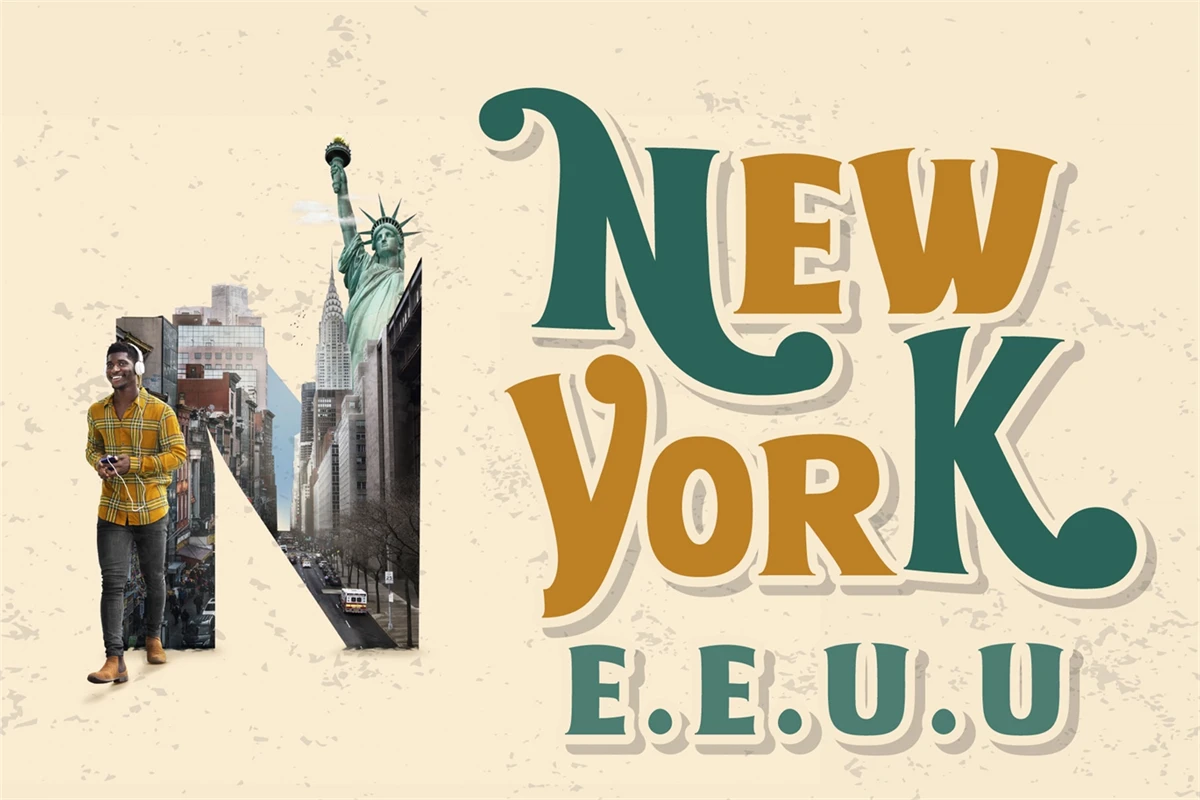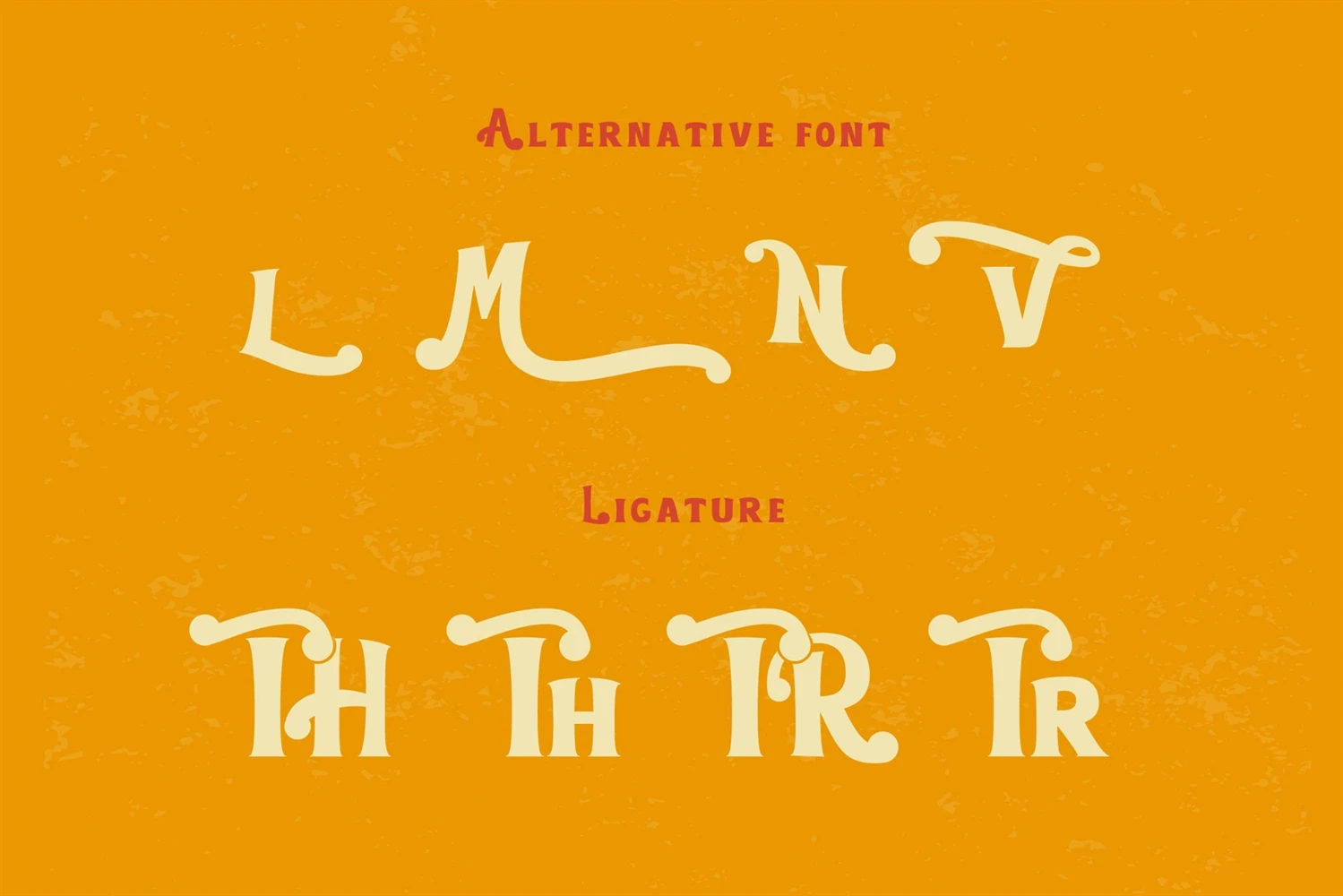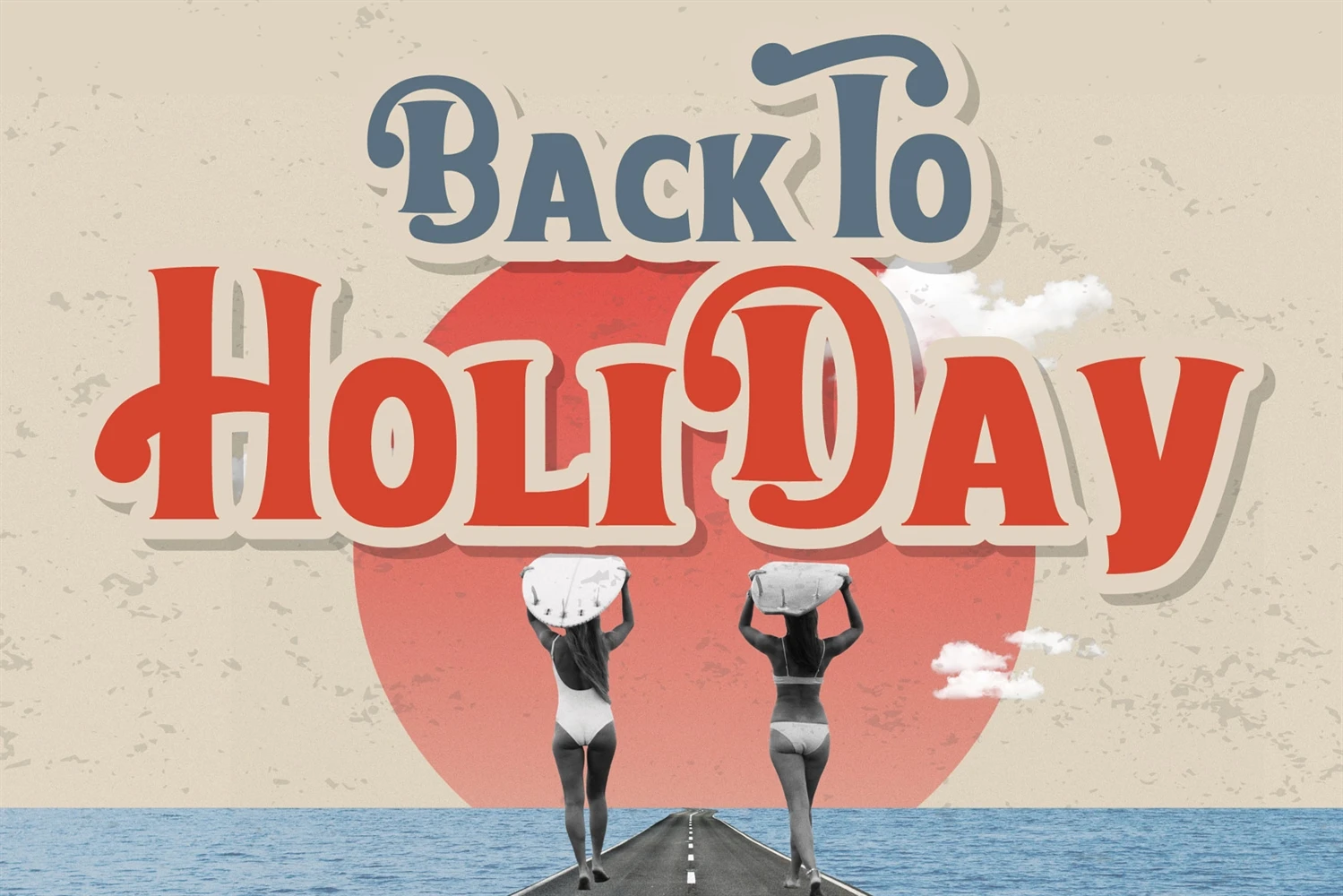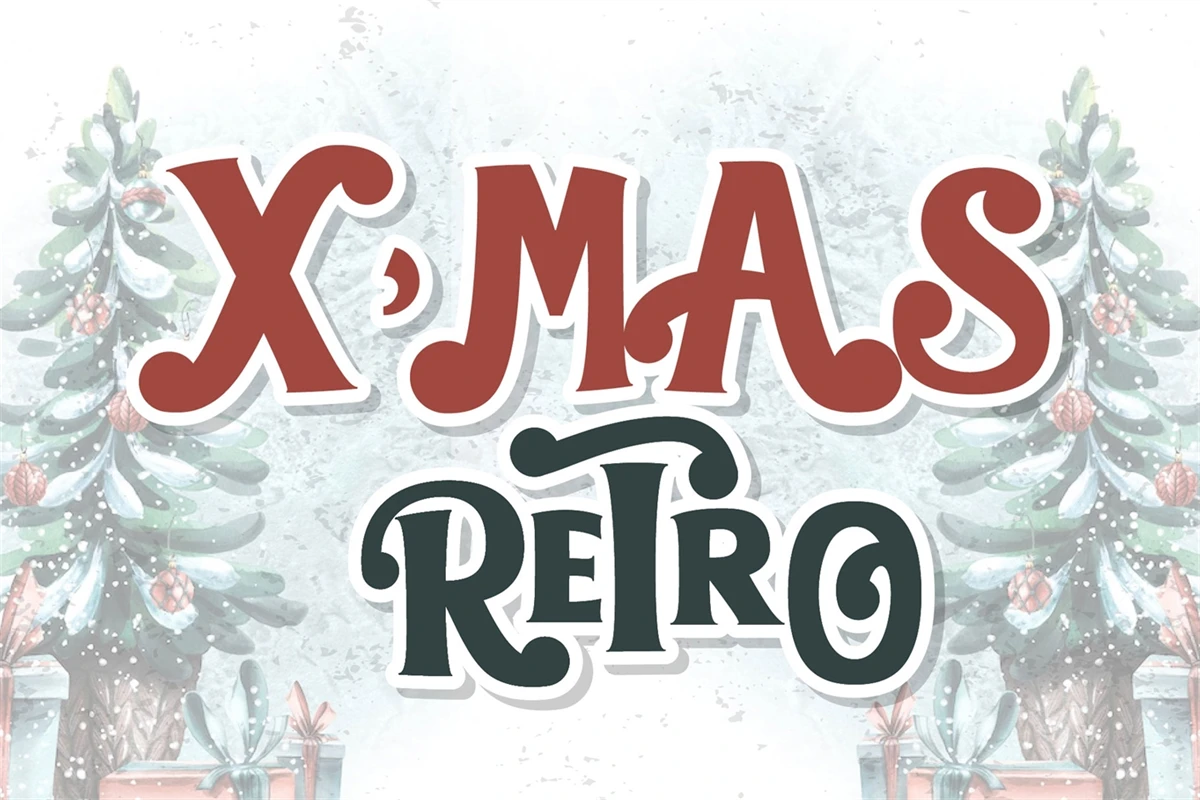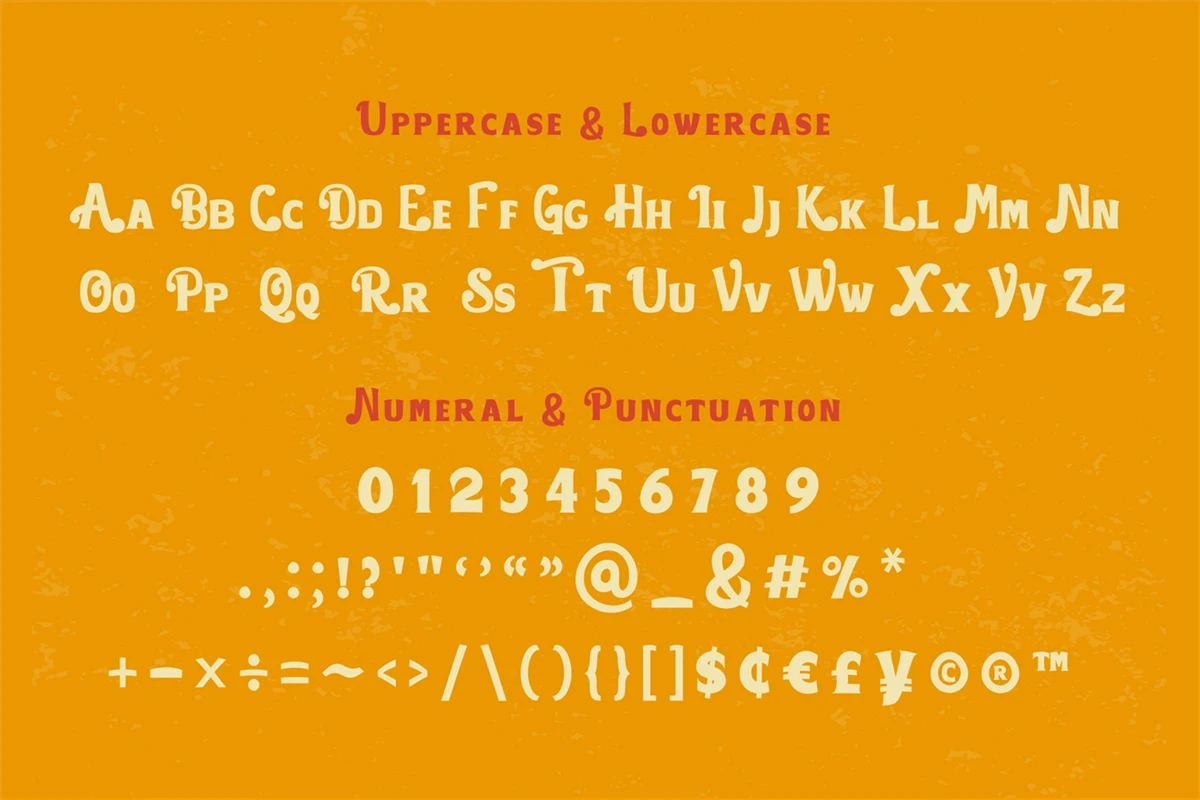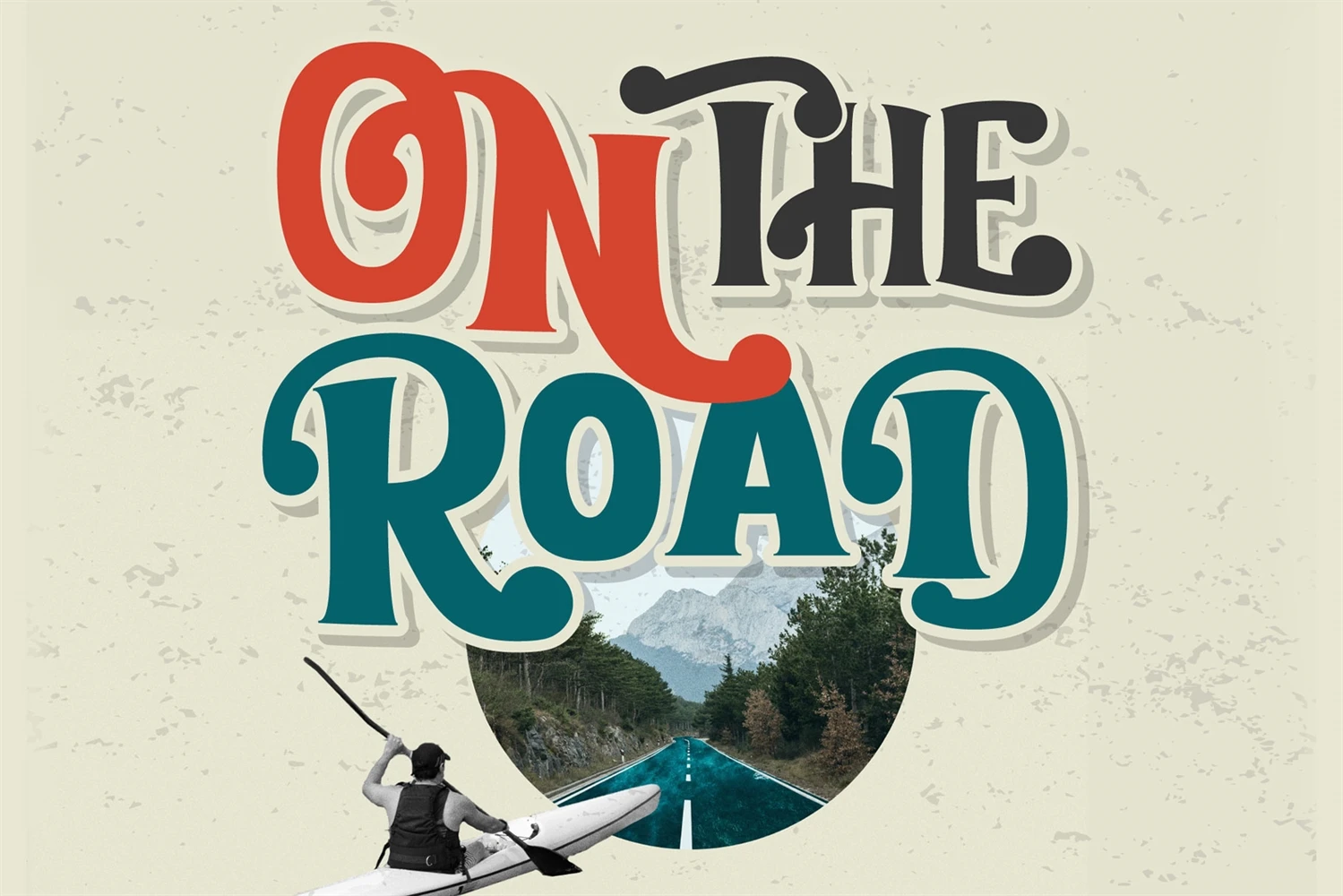
The Retro is a clean and smooth vintage-style retro font. Inspired by the retro typography of the 70s and 80s, anything written in this font is instantly recognizable and will grab attention. Use this display font to add a special retro touch to any design idea you can think of.